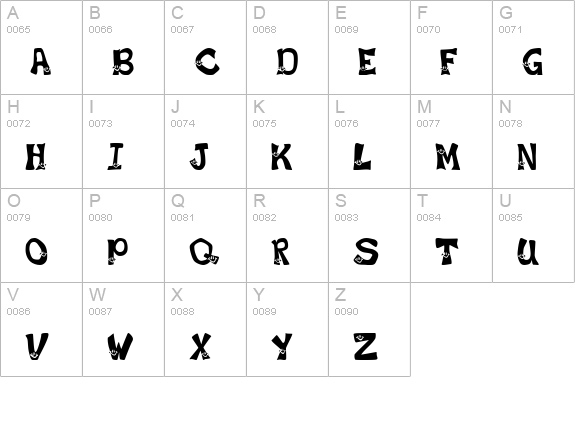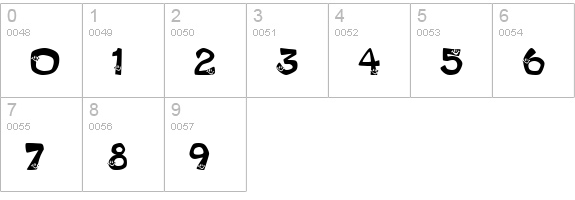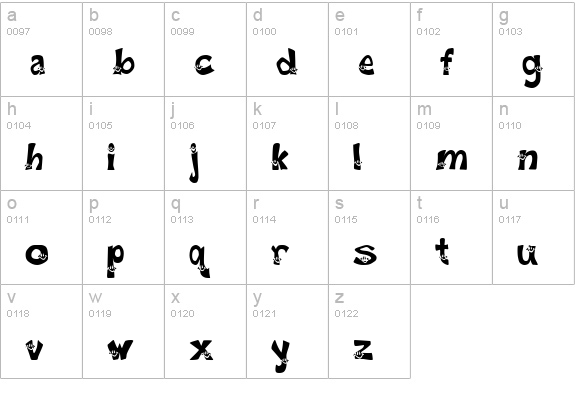
Introducing Smiley Font, the perfect typeface to add a touch of cheerful charm to your designs. This delightful font exudes positivity and playfulness, making it ideal for a variety of creative projects. With its whimsical letterforms and joyful curves, Smiley Font brings a smile to your face and captivates your audience. But what truly sets Smiley Font apart is that it is absolutely free. Yes, you read that right! This fantastic font is freely available to download at FontsMarket.com. Now, you can bring a sense of happiness and excitement to your designs without breaking the bank. Whether you're designing a logo for a children's brand, creating eye-catching posters, or adding a touch of whimsy to your social media graphics, Smiley Font is your go-to choice. Its versatility allows it to shine in both digital and print mediums, making it a valuable asset for any designer. Smiley Font is carefully crafted with attention to detail, ensuring smooth lines and clean curves that enhance legibility while maintaining its cheerful essence. Its wide range of characters and ligatures provide endless possibilities for creative typography, allowing you to truly make your designs pop. So why wait? Download Smiley Font today from FontsMarket.com and let your creativity soar. Whether you're a professional designer or a hobbyist, this freely available font will undoubtedly bring a smile to your face and infuse your designs with a sense of joy and positivity. Don't miss out on this amazing opportunity to add a touch of happiness to your next project. Get Smiley Font now and let your imagination run wild!